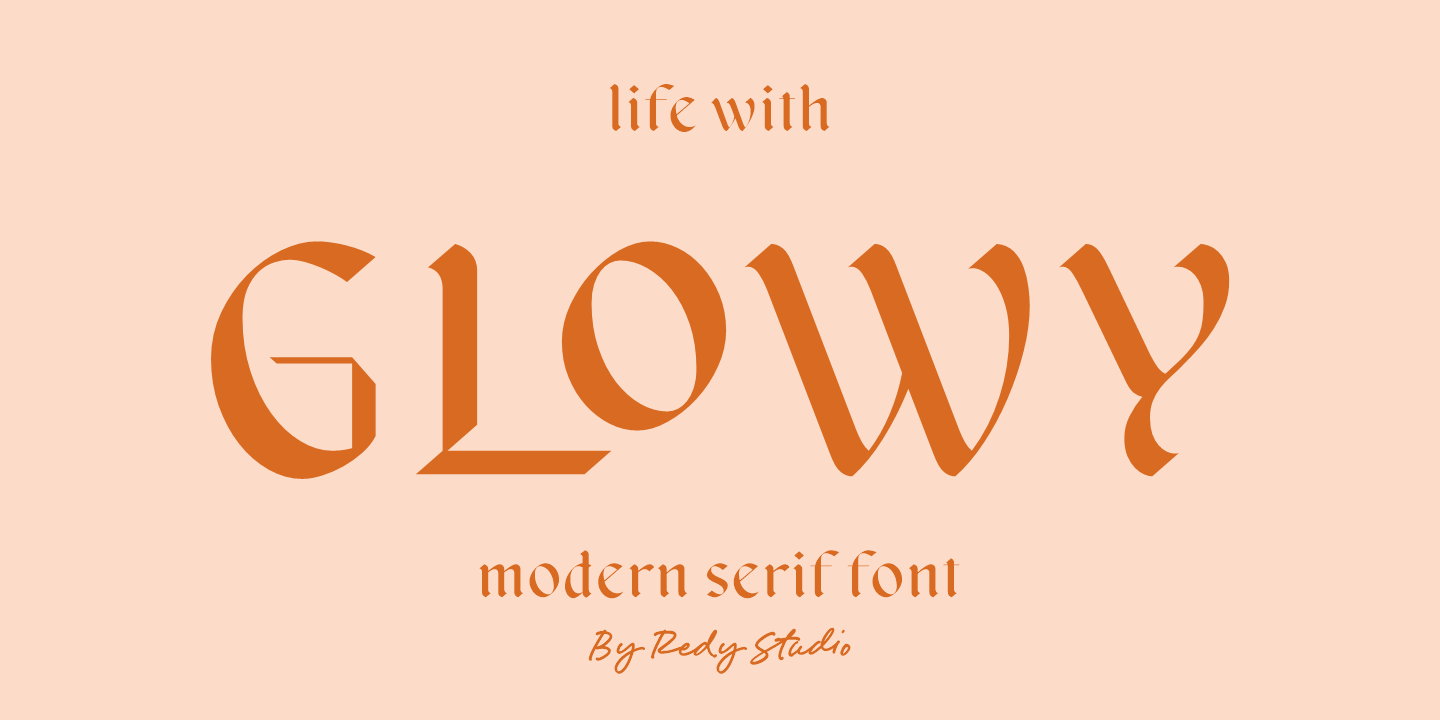
Glowy Font is ideal for various design applications including neon nightclub signage, electric music festival branding, luminous beauty product packaging, radiant wellness center materials, glow-themed party invitations, illuminated tech company logos, bright energy drink marketing, and sparkling entertainment venues that require electric luminosity and vibrant sophistication.
What makes Glowy Font truly exciting is its spectacular ability to capture the mesmerizing beauty of electric luminescence and radiant energy that transforms ordinary text into brilliant displays reminiscent of neon lights, aurora phenomena, and the captivating glow that emanates from sources of pure energy and light. This dazzling typeface features letterforms with subtle luminous qualities that create an immediate sense of brightness and electric vitality, evoking images of city nights, electric performances, and the magnetic attraction of glowing displays that draw attention from across crowded spaces. The font's radiant character reflects the energy and excitement of modern nightlife and electric entertainment, making it perfect for brands that want to communicate vibrancy, energy, and the irresistible attraction of brilliant illumination. Its glowing appearance creates immediate associations with excitement, energy, and electric entertainment.
The Glowy Font family includes multiple weights and luminous variations designed to enhance electric communication. The collection features Light, Regular, Medium, Bold, and Black weights, each maintaining the font's characteristic glowing appeal while offering different levels of electric presence. The family also includes alternate characters with varying glow intensities, luminous elements that simulate light effects, and stylistic sets that create dynamic text arrangements reflecting the energy of electric displays. Additional features include contextual alternates and electric ligatures that enhance the authentic, radiant appearance.
Entertainment and energy professionals consistently choose Glowy Font Free Download for projects requiring authentic electric character and luminous credibility. The font's radiant nature makes it particularly effective for nightlife venues, energy brands, and entertainment companies targeting audiences who appreciate electric excitement and vibrant experiences. Its excellent visibility and dramatic impact ensure effective communication while maintaining the distinctive glowing character that conveys energy and electric sophistication.
The advanced OpenType capabilities of Glowy Font include contextual alternates, stylistic sets, and comprehensive character support that accommodates energy terminology and electric expressions while preserving the font's authentic luminous character. The technical precision ensures consistent glowing appearance across different entertainment applications and energy platforms.
For creative professionals seeking a typeface that embodies genuine electric energy and luminous sophistication, Glowy Font offers unparalleled radiant appeal and electric elegance. Its ability to convey electric vitality while maintaining functional communication makes it invaluable for entertainment venues, energy companies, and vibrant lifestyle brands. The font's distinctive glowing character ensures memorable electric impact across all applications, creating powerful visual identity systems that celebrate the magnetic attraction of luminous design and the irresistible energy of electric entertainment that captivates audiences and creates unforgettable glowing experiences.